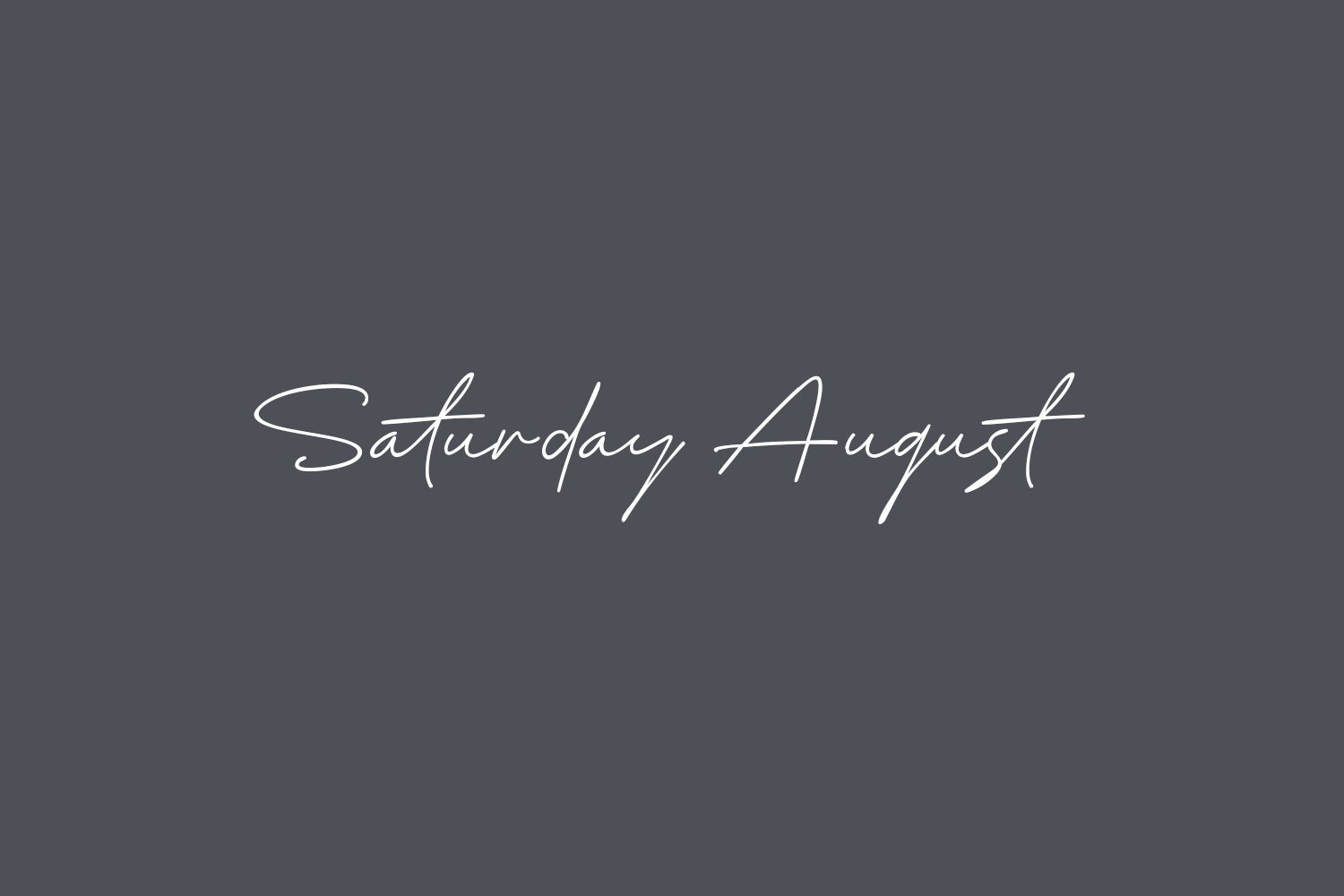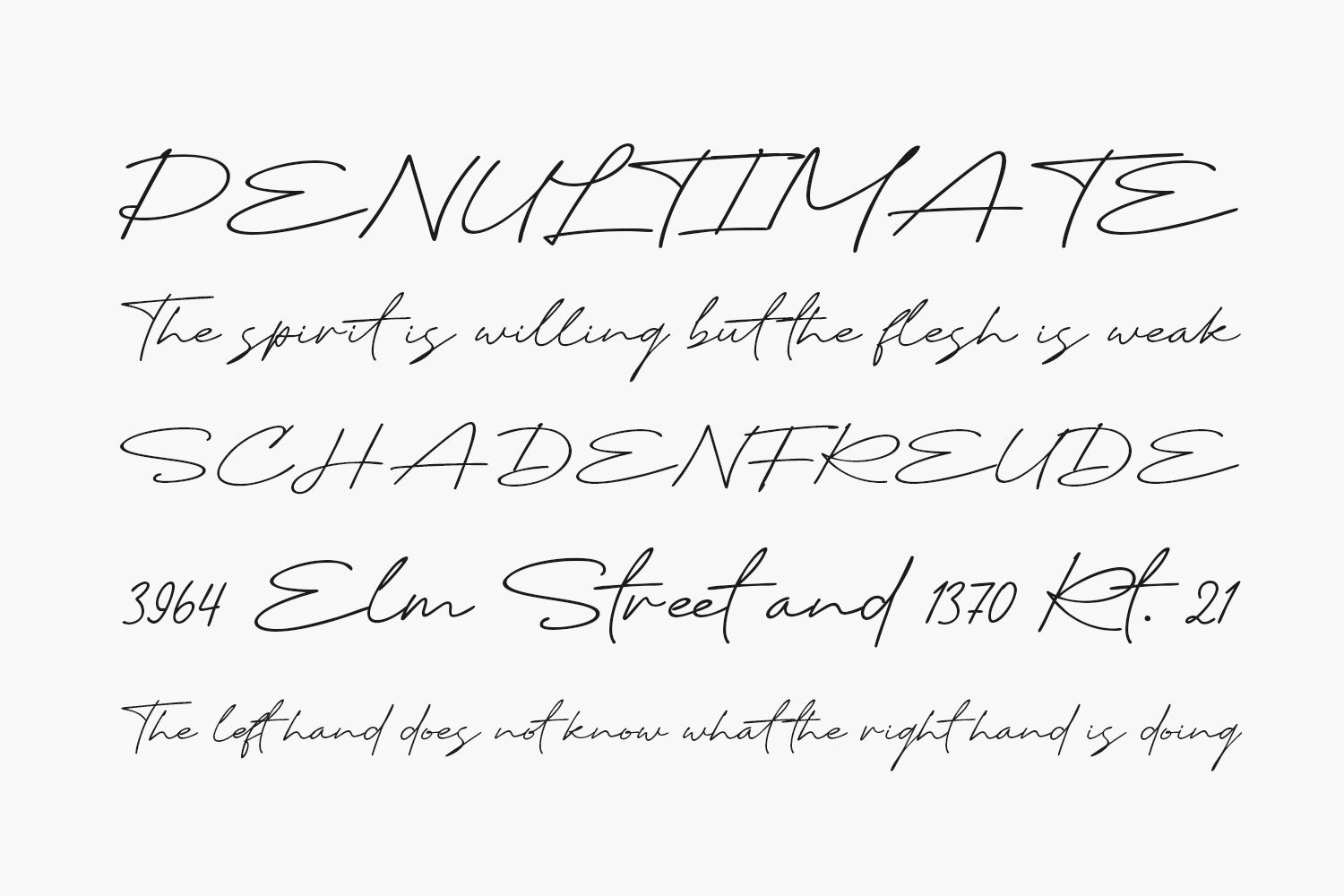
Saturday August Free Font is a modern and elegant script font perfect for posters, logos, magazines, book covers, banners, and many more! Get this amazing font, and use it to create lovely designs. Saturday August Free Font is free for personal use only. Please purchase the full version for commercial use.